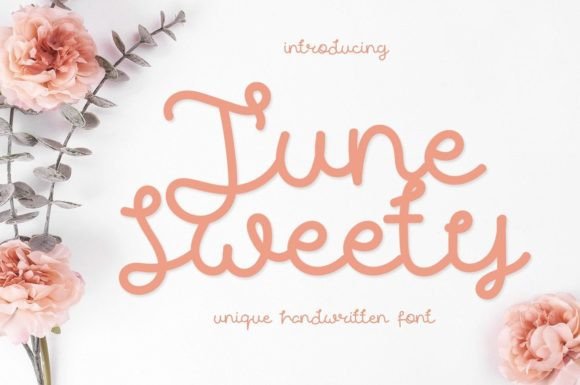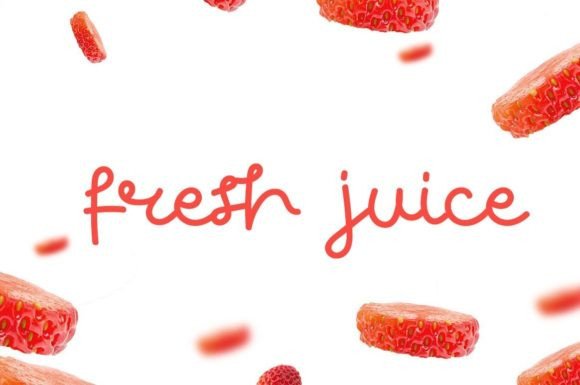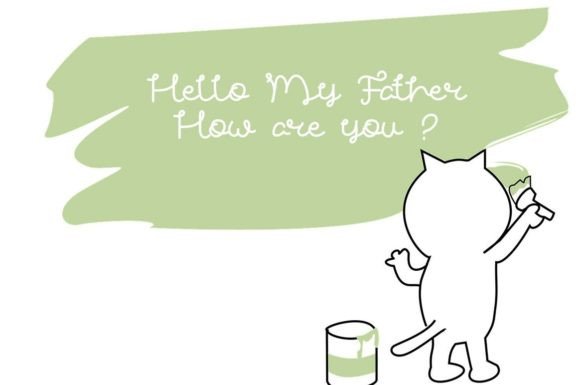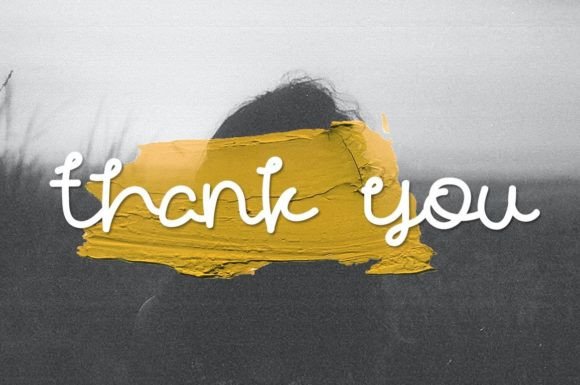
June Sweety Font
About June Sweety Font
“June Sweety” emerges as a beautiful and sweet handwritten font, offering a fresh, clean, and elegant aesthetic that enhances a variety of projects. This versatile font is well-suited for both formal and informal applications, promising to add a touch of beauty to your designs. Incorporate “June Sweety” into any project in need of a beautiful and charming typographic element, and watch as it elevates the overall appeal, contributing to the prosperity of your business.
The beauty of “June Sweety” lies in its ability to convey a sense of freshness and cleanliness. The handwritten style adds a personal and approachable touch, making it adaptable to a wide range of design contexts. Whether used in formal documents or informal creative projects, the font seamlessly blends with different themes, enhancing visual aesthetics.
For formal applications, such as business documents or professional communication, “June Sweety” brings an elegant and refined script that maintains readability while adding a touch of sophistication. The clean lines and graceful curves of the font contribute to a polished and professional appearance.
In more casual or creative endeavors, “June Sweety” shines as a beautiful and sweet choice. Its handwritten charm adds warmth and character, making it ideal for projects that require a friendly and inviting vibe. From informal invitations to creative marketing materials, the font adapts effortlessly to diverse design needs.
The promise of prosperity is embedded in the adaptability of “June Sweety” across different business contexts. Whether applied to branding materials, promotional documents, or other business-related projects, the font has the potential to create a positive and memorable impression on clients and customers.
In essence, “June Sweety” is more than just a font; it’s a design asset that contributes to the visual identity and success of your projects. Embrace its beauty and sweetness as you infuse it into your designs, witnessing the transformative impact it brings. Let “June Sweety” be the elegant and charming element that enhances your creations and plays a part in the prosperity of your business.